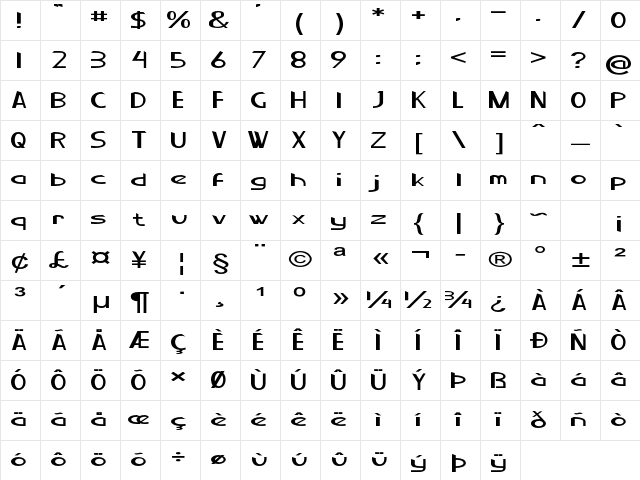
Rugrat Extra-expanded Bold
Style: Extra-expanded Bold
Complete Rugrat Extra-expanded Bold glyph index. Displaying only characters natively supported by Rugrat Extra-expanded Bold font.
Design Context for Rugrat
Rugrat is a composed and adaptable typeface that performs quietly and consistently across a wide range of design contexts. Its bold stroke weight gives it real presence on the page.